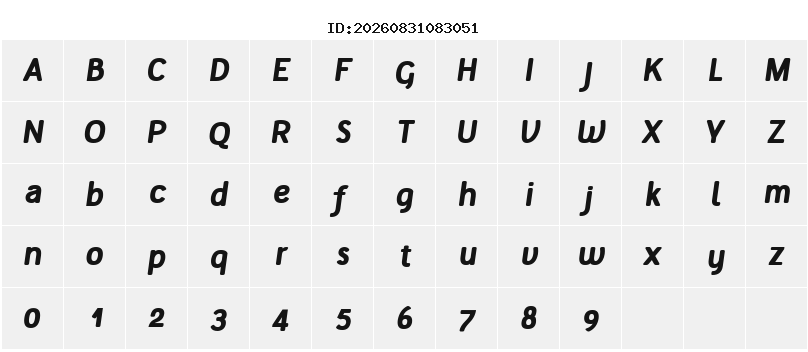
• Font Name: Tellural Alt
• Font Style: Gras Italique
• Full Font Name: Tellural Alt Bold Italic
• Designer: Lauren Thompson
About Tellural Alt.ttf
Tellural Alt.ttf is a modern, elegant sans-serif font designed for ultimate readability and visual harmony. Perfect for branding, headlines, web design, and print materials.